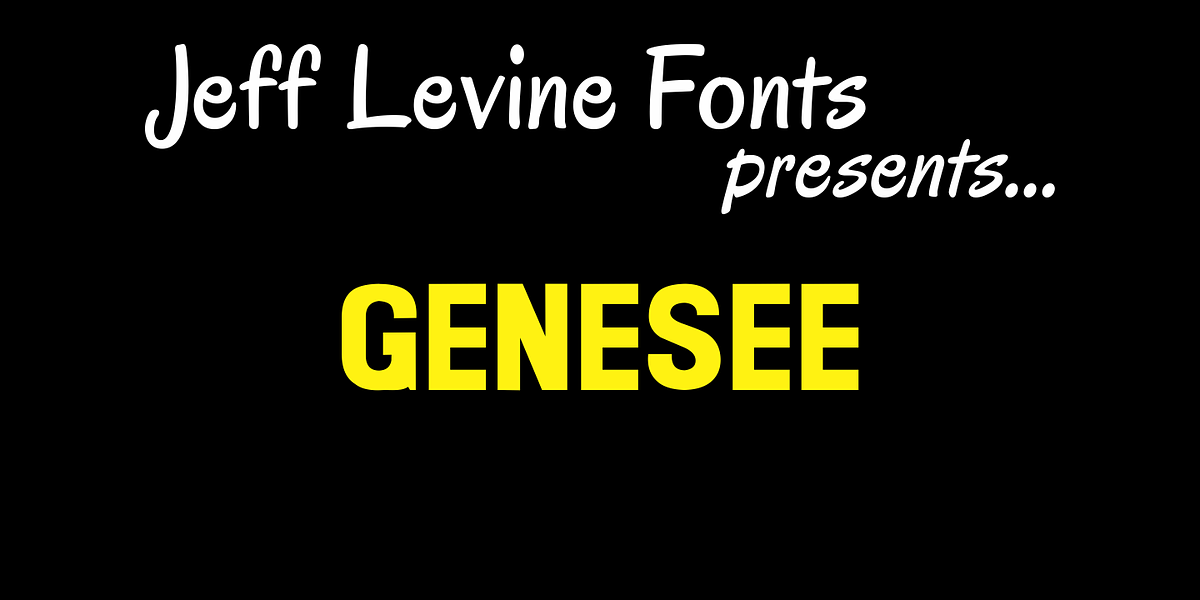
Genesee JNL
Genesee JNL is a medium-bold sans serif inspired by the letter shapes of Jeff Levine’s Paper Stencil JNL, and named for the river valley that traverses Rochester, New York.